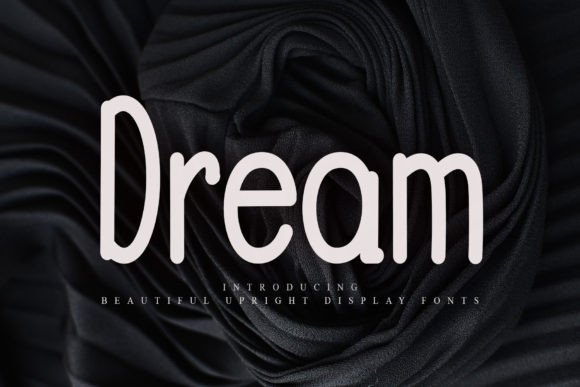
Dream Font: Elevate Your Designs with Elegance and Timeless Style
Are you on the hunt for a font that exudes elegance, sophistication, and a touch of timeless charm? Look no further than the Dream Font, a stunning display font that is sure to capture your heart. With its incredibly distinct and beautiful style, this font is perfect for designers and crafters looking to add a touch of luxury to their favorite projects.
The Essence of Dream Font
Described as a neat and beautiful display font with an elegant touch, Dream Font is a masterclass in typographic design. Its unique style is both classic and modern, making it an excellent choice for a wide range of applications, from branding and advertising to packaging and digital media.
What Makes Dream Font Stand Out
So, what sets Dream Font apart from other fonts on the market? Here are just a few reasons why designers and crafters are falling in love with this incredible typeface:
- Elegant Touch: Dream Font boasts an undeniable air of sophistication, making it perfect for high-end branding, luxury packaging, and refined digital media.
- Distinct Style: With its unique blend of classic and modern elements, Dream Font is sure to make your designs stand out from the crowd.
- Timeless Appeal: Unlike trendy fonts that quickly go out of style, Dream Font’s timeless charm ensures that your designs will remain stylish for years to come.
- Versatility: Whether you’re working on a logo, brochure, website, or social media graphics, Dream Font is an excellent choice for a wide range of applications.
Dream Font is an ideal choice for designers and crafters looking to elevate their projects with a touch of elegance and sophistication. Whether you’re a seasoned professional or just starting out, this font is sure to inspire your creativity and help you create spectacular designs.
Tips for Using Dream Font Effectively
To get the most out of Dream Font, here are a few tips to keep in mind:
- Pair with contrasting fonts: Combine Dream Font with a contrasting font to create visual interest and add depth to your designs.
- Experiment with colors: Try pairing Dream Font with a range of colors to find the perfect combination that complements your brand or project’s aesthetic.
- Use for headlines and titles: Dream Font is perfect for headlines, titles, and other display text, where its elegant style can really shine.